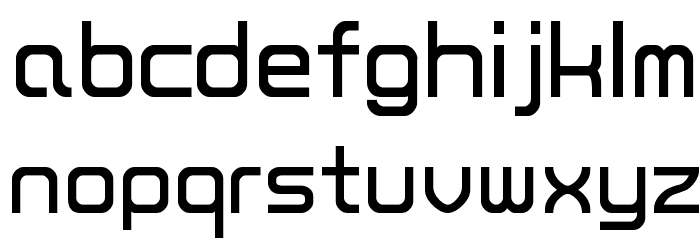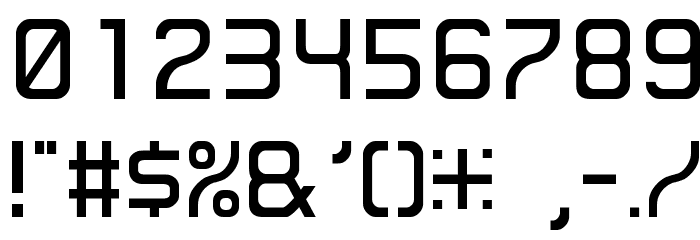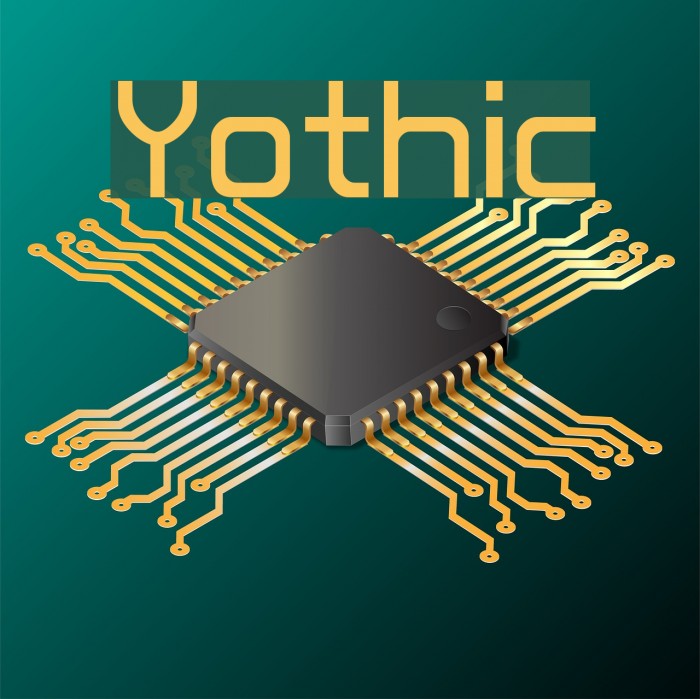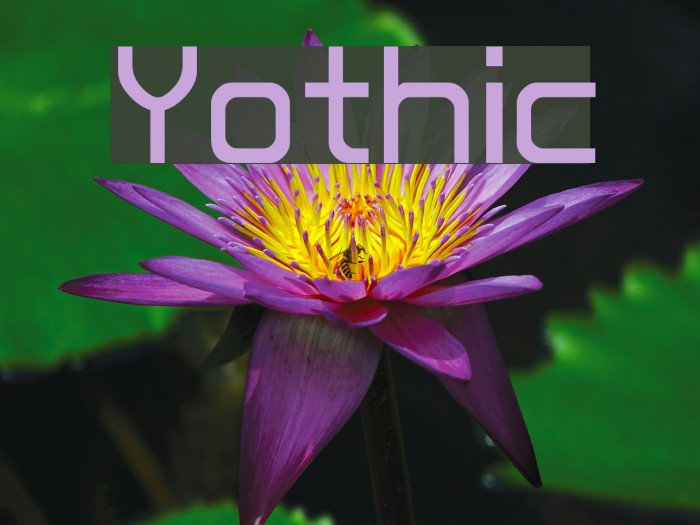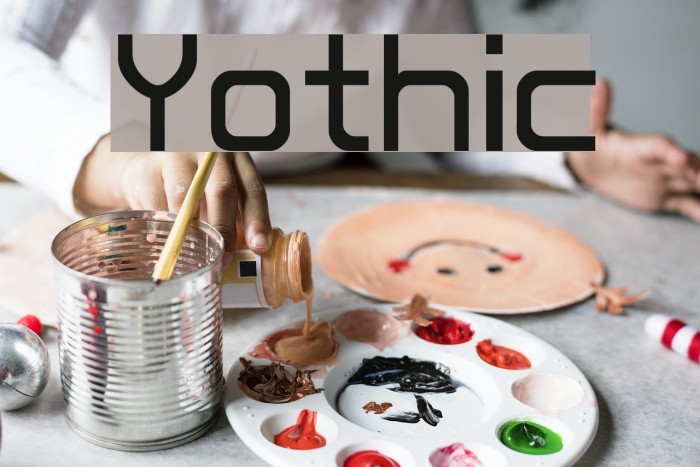
Yothic Font
This font features a modern, geometric design with rounded edges and a clean, futuristic appearance. The uppercase letters are uniform in height, while the lowercase letters maintain a consistent baseline, creating a harmonious flow. The numerals are distinct and easy to read, with a slightly technical feel. Special characters are well-integrated, maintaining the overall aesthetic. The font's structure is balanced, with a focus on clarity and simplicity, making it suitable for various digital and print applications. Its unique style is both eye-catching and functional, ideal for projects that require a contemporary and sleek look.
A modern, geometric font with rounded edges and a clean, futuristic style.
- Proposed Projects: Ideal for tech branding, digital interfaces, modern advertising, and futuristic design projects.
- Use Case: Headlines, Logos, Digital interfaces